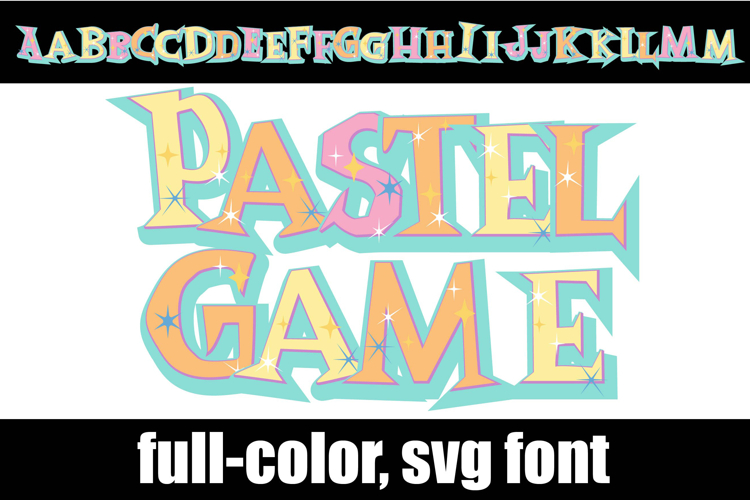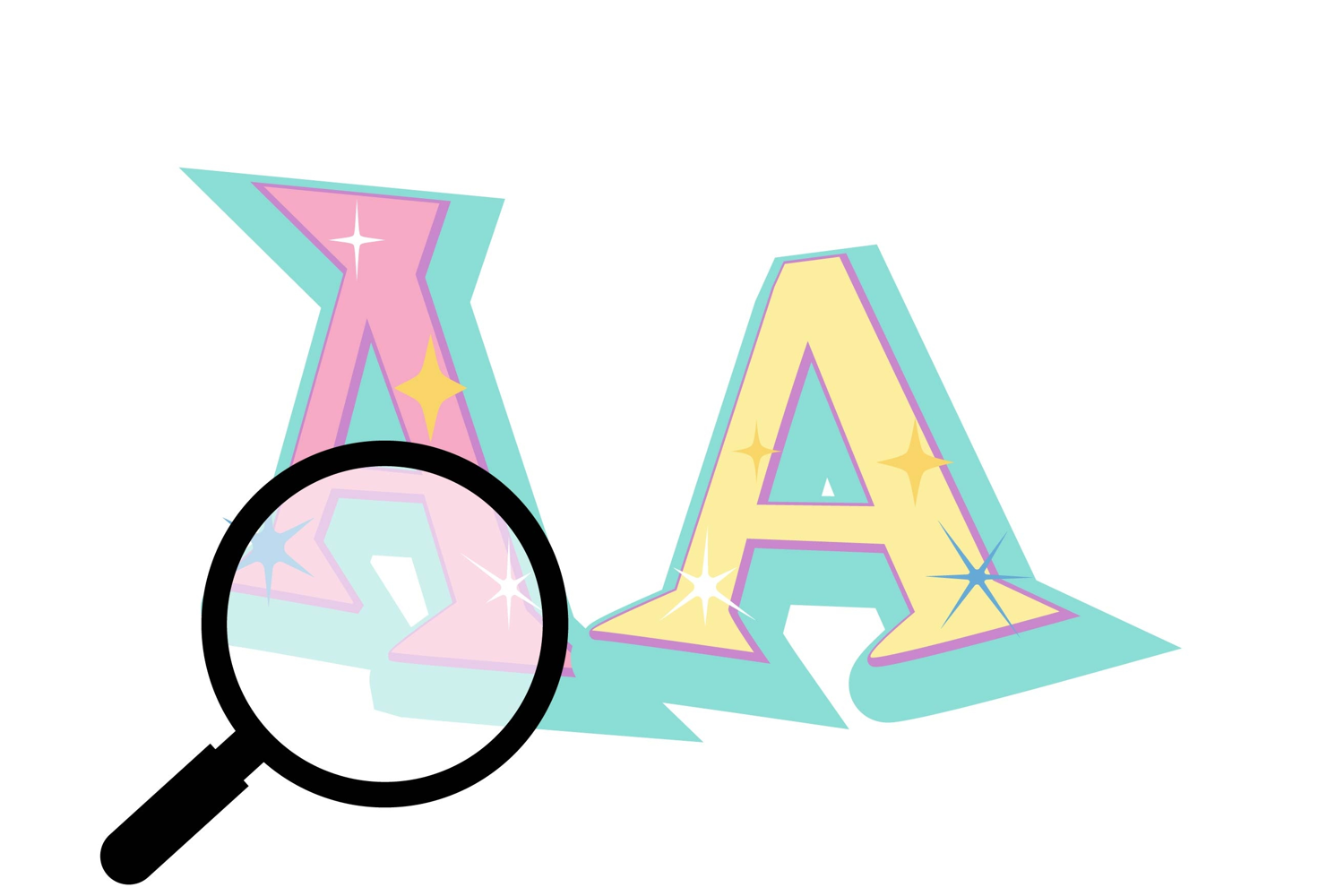
Pastel Game Color Font
This full-color, pointy serif is in a pastel color palette. There is an alt case of additional colors of each letter that you can access through your system's character map.